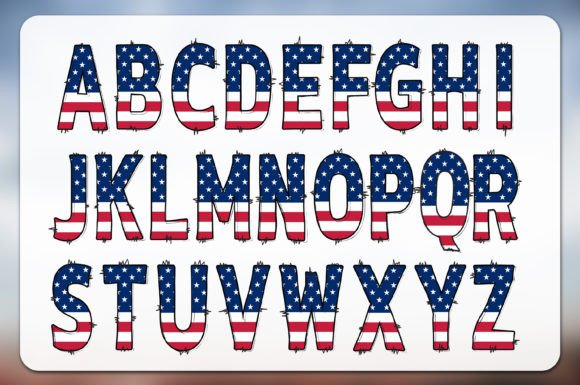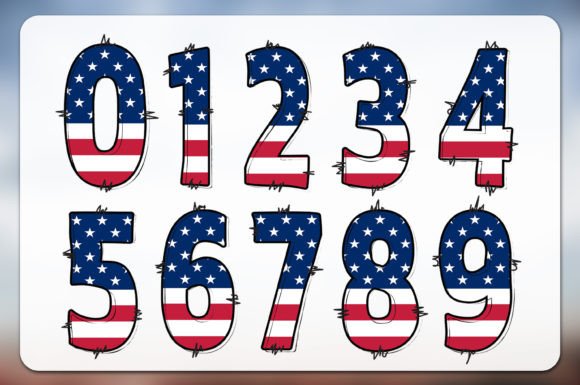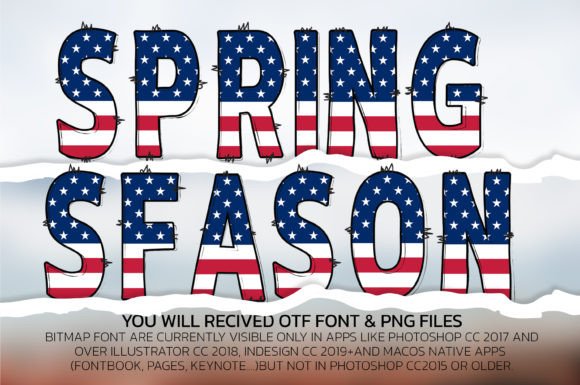
Introduction to Love Amelica Font
Remember that moment when you’re brainstorming ideas for a creative project, and suddenly, the perfect font pops into your mind? For many designers, it’s like finding a hidden treasure that brings their vision to life. For those who love all things American, the Love Amelica Font is a game-changer. This uniquely crafted patriotic color font is a treasure trove of fun and playful characters that will make your designs stand out.
Whether you’re creating stickers, mugs, t-shirts, or event invitations, the Love Amelica Font is the perfect design resource to add a touch of American charm to your work. With its high-quality characters and transparent background, you can ensure that your designs look professional and eye-catching. And the best part? This font is available for free download, making it an invaluable addition to any designer’s toolkit.
As a valuable resource for designers, the Love Amelica Font is a must-have for anyone looking to create high-quality designs that showcase their creativity and patriotism. So, get ready to fall in love with this amazing font and take your creative projects to the next level!
Key Features of Love Amelica Font
- High-quality design resource ideal for creative projects, including graphic design, digital art, and typography.
- Features a unique and elegant design style, making it perfect for projects that require a touch of sophistication and romance.
- Designed with a high resolution, ensuring that the font remains crisp and clear even at large sizes.
- Perfect for use in digital and print media, including logos, branding, and marketing materials.
Honest Review: Love Amelica Font
After downloading and installing the font, I was pleased to find that it’s a high-quality design resource with a transparent background. The font is clean and modern, making it perfect for a variety of creative projects, from logos to brochures.
Here are some things that work well with the Love Amelica Font: ✨
- High-quality design with a transparent background
- Perfect for a variety of creative projects
However, I did notice a few limitations: ⚠️
- The font is only available in a limited number of weights and styles
- The font may not be suitable for use in large blocks of text
Overall, I’m impressed with the Love Amelica Font. It’s a great design resource for anyone working on a creative project, and the free download makes it a great option for those on a budget.
The Love Amelica Font is ideal for creative projects that require a high-quality, elegant font. It’s perfect for wedding invitations, business cards, and other design elements that require a touch of sophistication.
Compared to Love Amelica Font, Great Vibes Font has a more playful and casual feel, making it suitable for a wider range of creative projects.